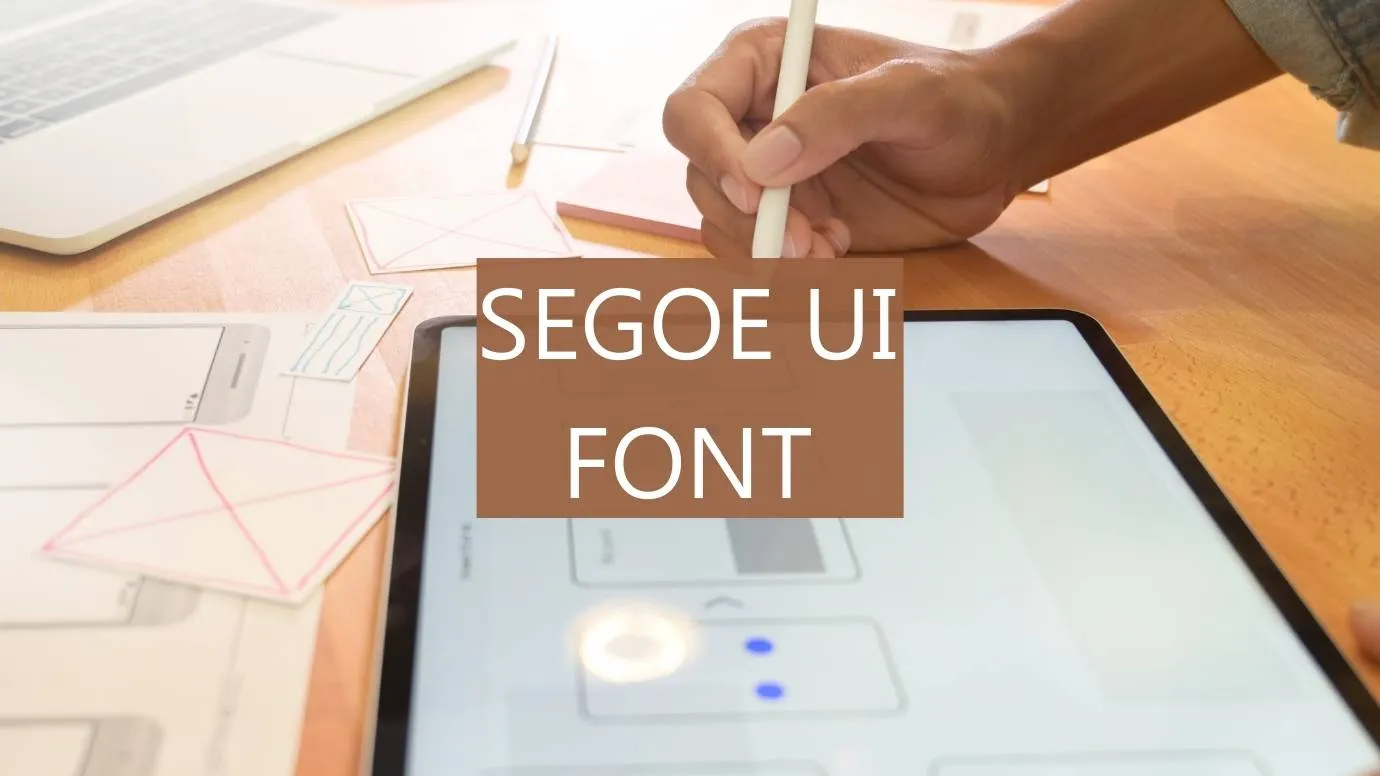
Segoe Ui is an extended sans-serif typeface that is widely used in different Microsft applications. Monotype developed this typeface many years ago however, currently, it is a trademark of Microsoft.
Segoe UI is one of the parts of this enhanced font family and is known for being employed in various products of Microsoft. Furthermore, you can draft many beautiful Segoe Ui designs and logos with the Segoe Ui Font and arvo font.